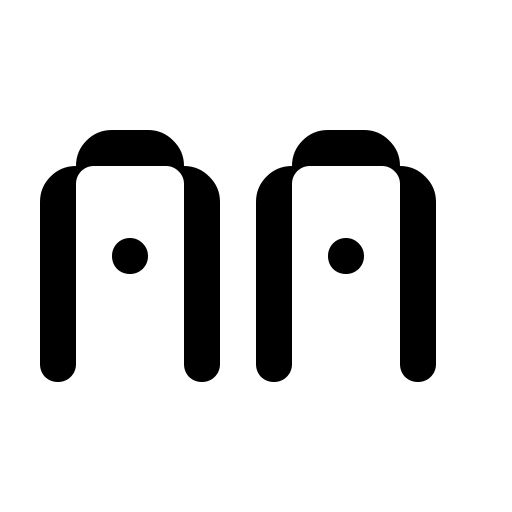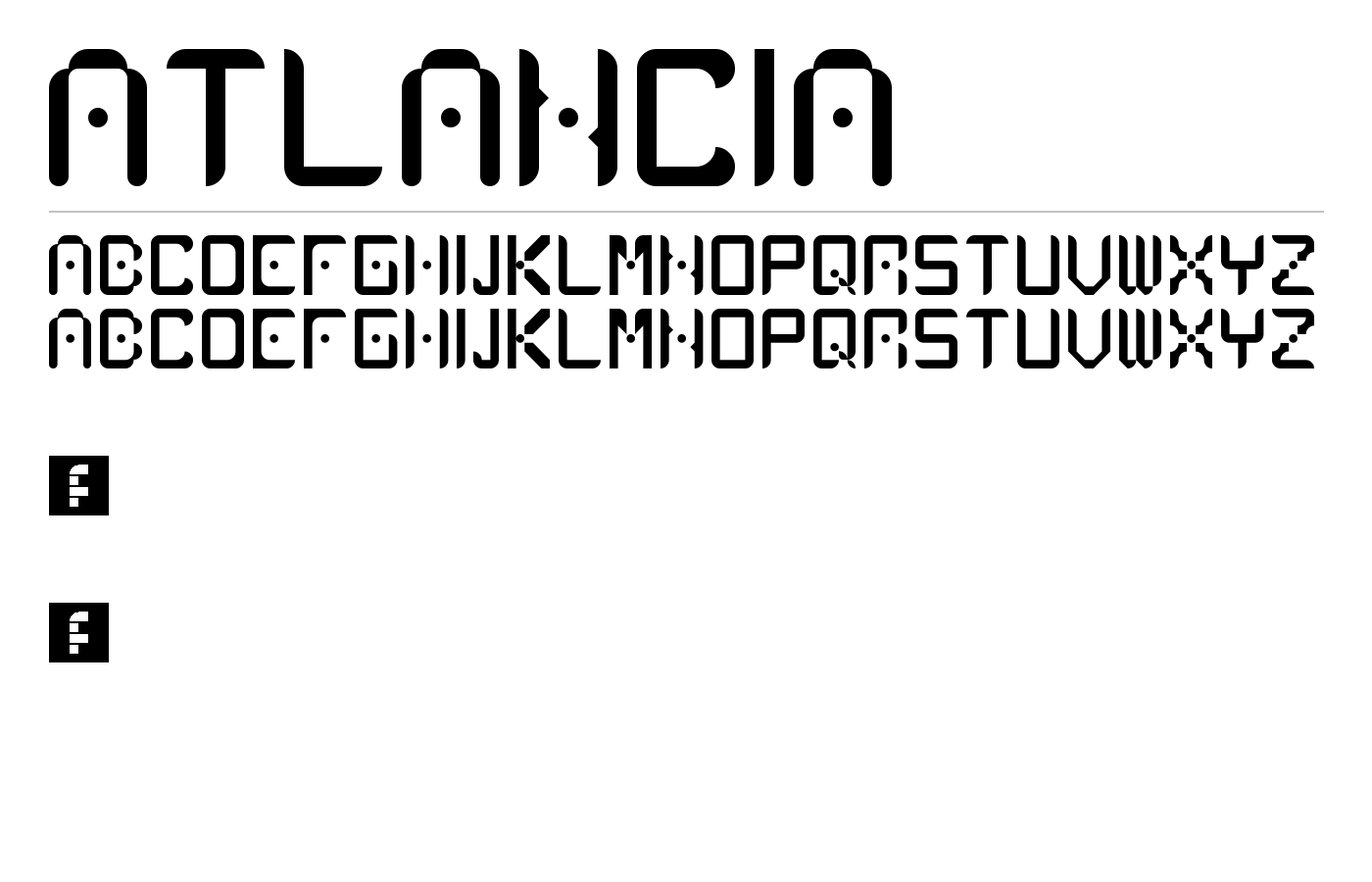
Atlancia is a futuristic sans serif font with a geometric yet playful design, featuring rounded terminals and unique dot embellishments that add character and a tech-inspired vibe. Its medium weight and narrow width make it suitable for standout headlines and logos, especially in modern, digital, or sci-fi themed branding. This font works best where a distinctive, forward-thinking look is desired, adding a creative edge without sacrificing readability.
Atlancia Font
About Atlancia Font
| Font family | Atlancia Font |
| Designer | lalato |